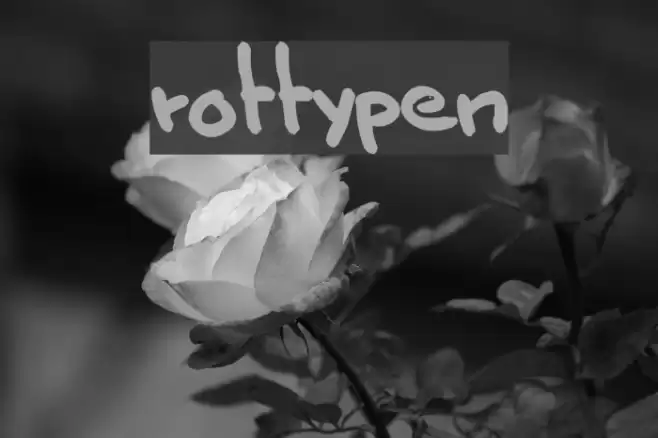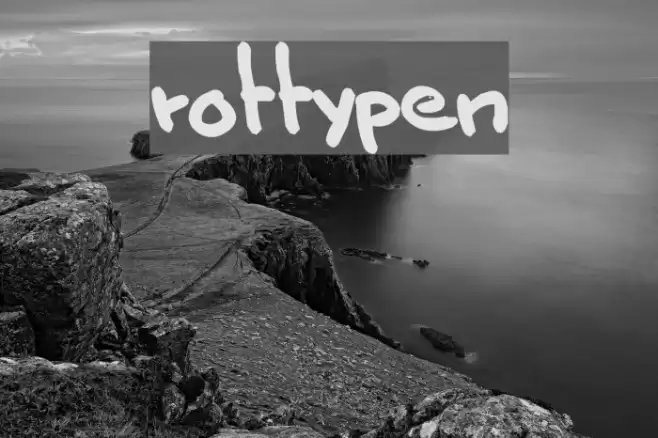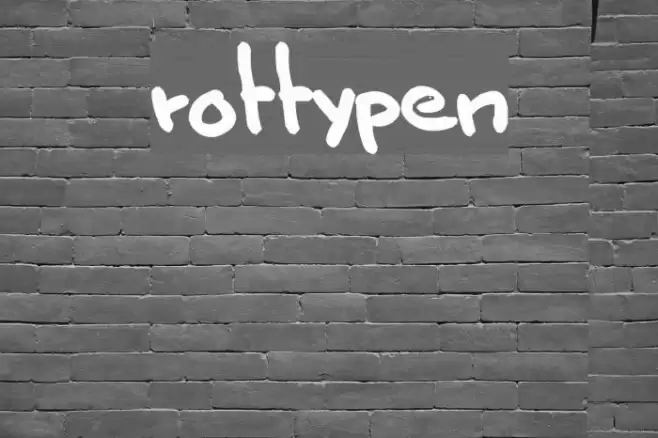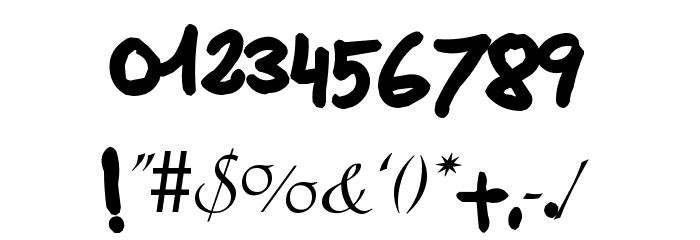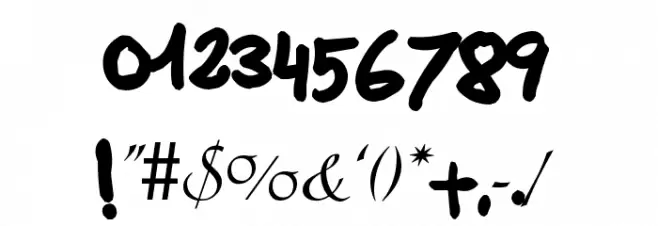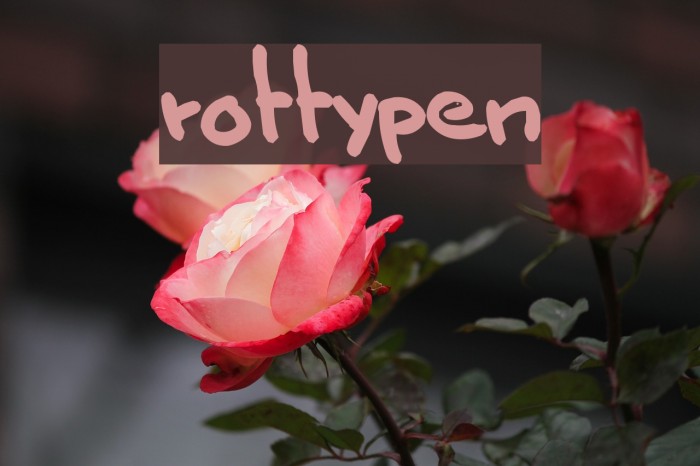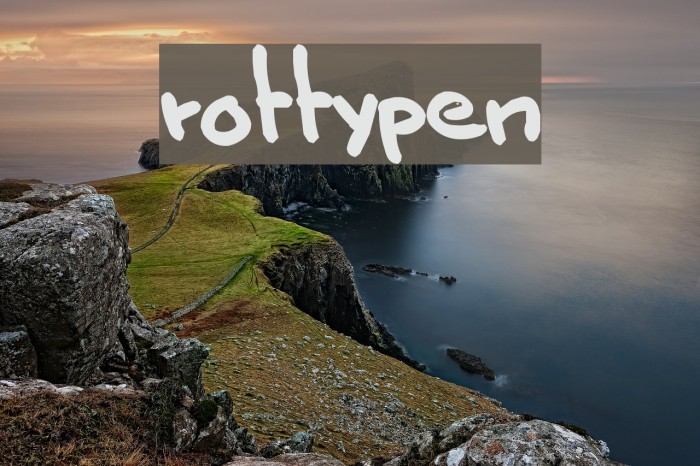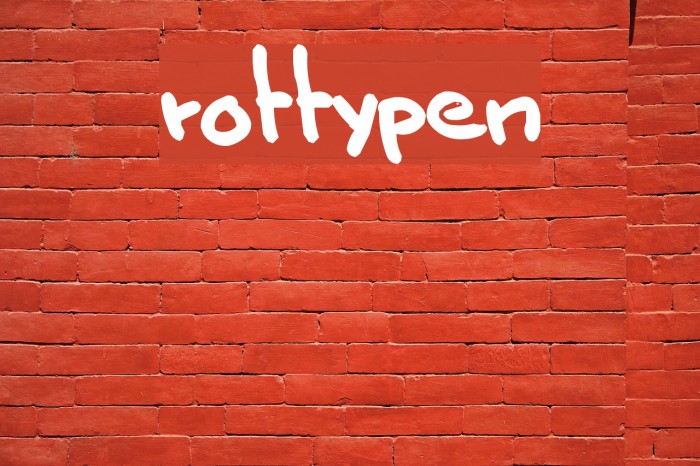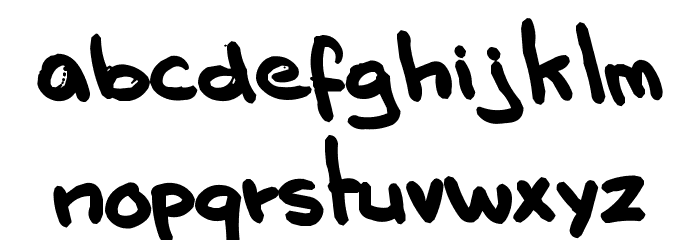
rottypen Font
rottypen Description
This font exudes a playful and casual handwritten style, characterized by its bold and slightly irregular strokes. The letters have a lively and dynamic appearance, with a slight slant that adds to its informal charm. The uppercase and lowercase letters maintain a consistent style, with rounded edges and a smooth flow. The numbers and special characters follow the same playful aesthetic, making the font versatile for various creative projects. Its boldness ensures readability while the irregularities give it a unique personality.
A bold, playful handwritten font with a casual and dynamic style from Uncategorized fonts.
- Proposed Projects: Ideal for greeting cards, children's books, playful branding, and social media graphics.
- Overall Style: Casual, Playful
- Use Case: Headlines, Logos, Informal Text